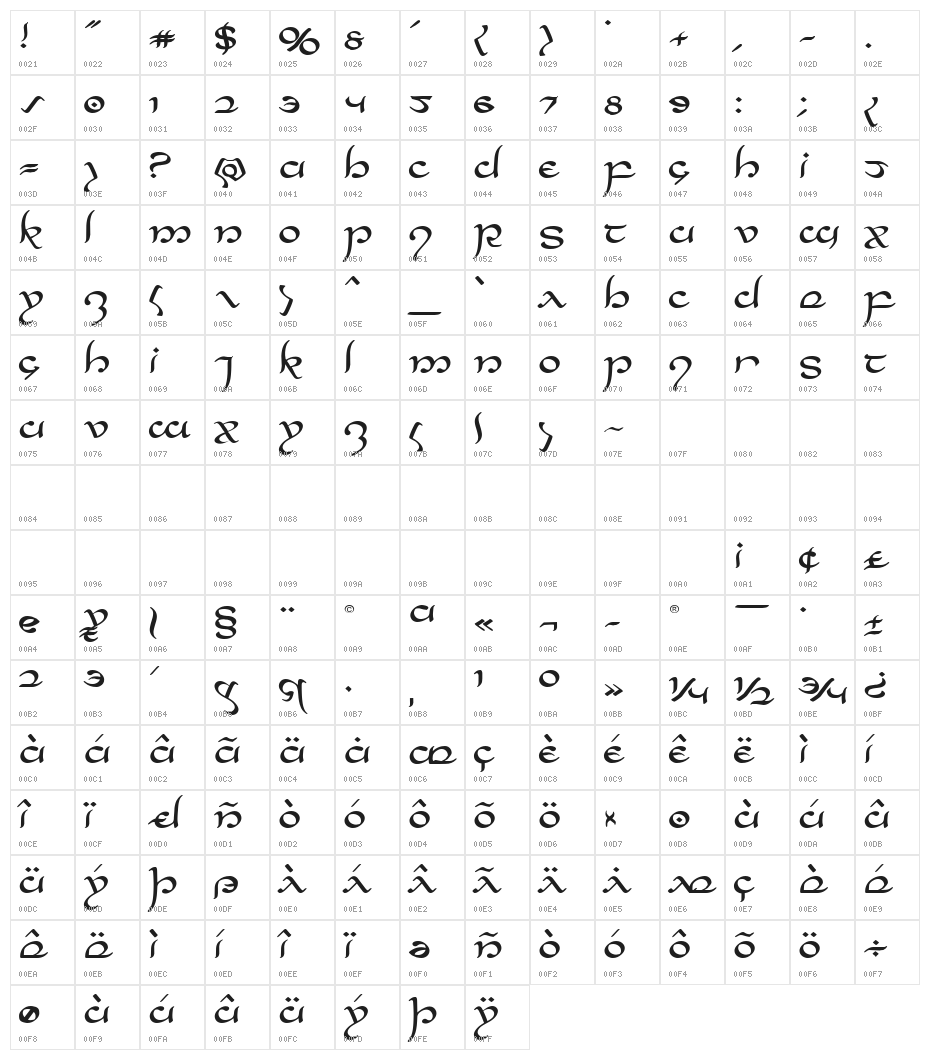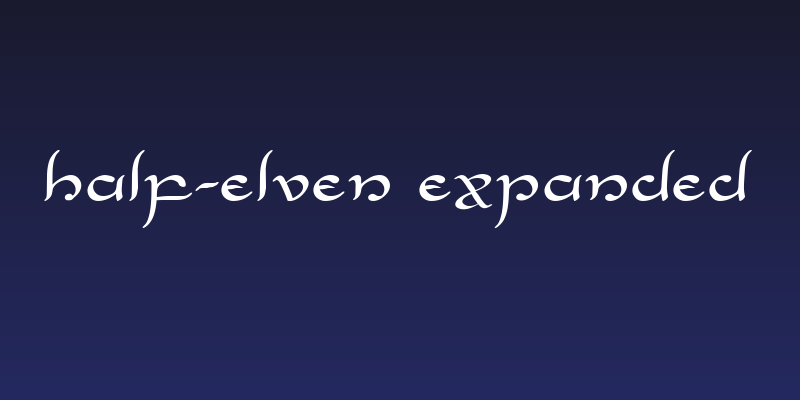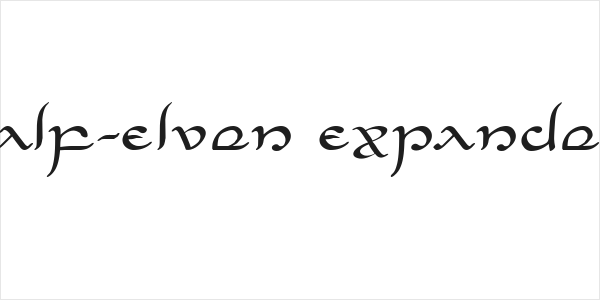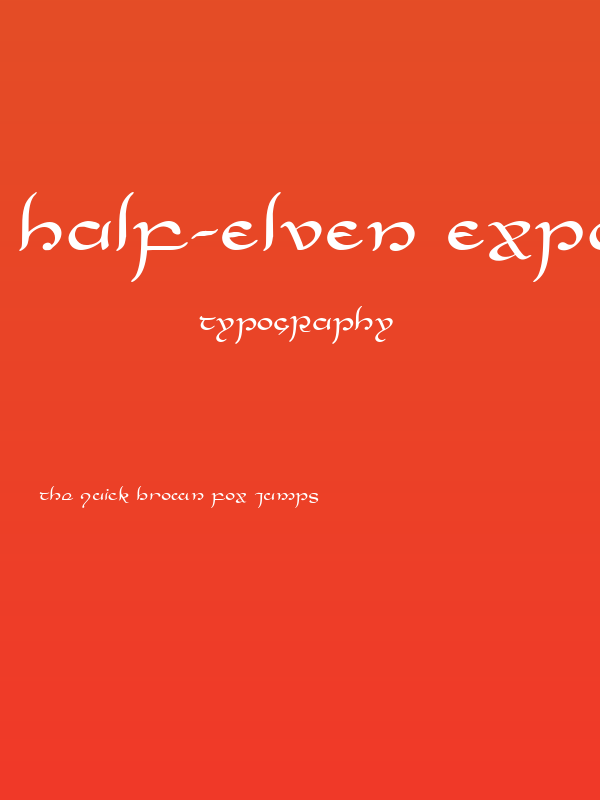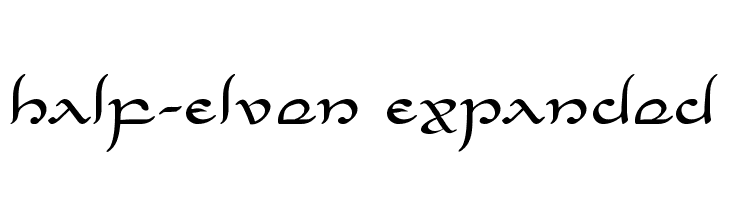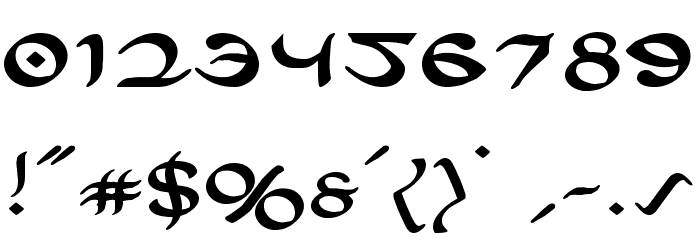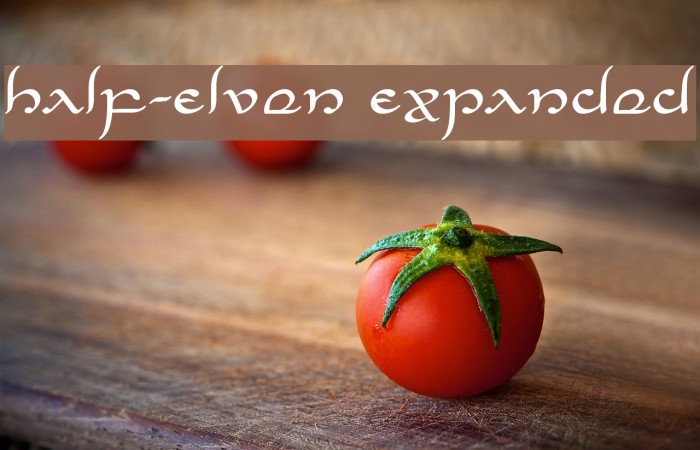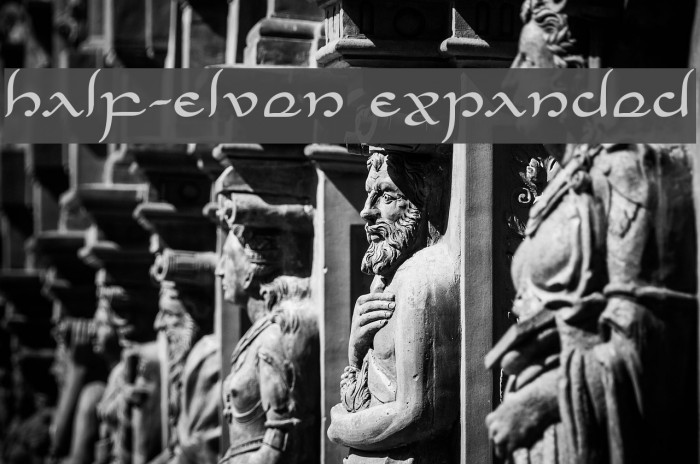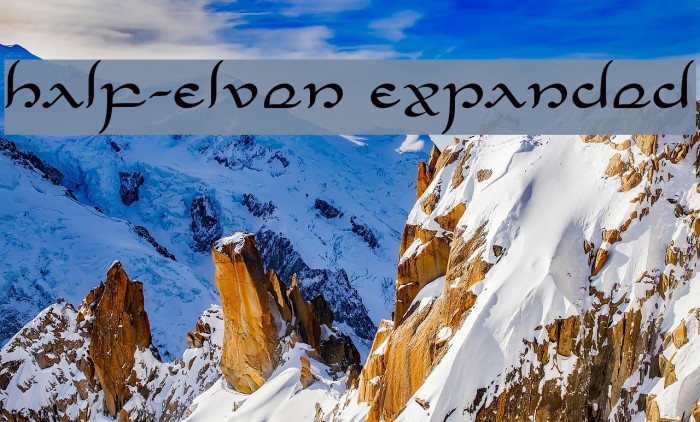
Half-Elven Expanded Font
Half-Elven Expanded Description
This font features an elegant and mystical design, reminiscent of fantasy and elven aesthetics. The characters are adorned with intricate curves and flourishes, giving them a whimsical and enchanting appearance. The strokes are moderately thick, providing a balanced contrast that enhances readability while maintaining an artistic flair. The overall style is both decorative and sophisticated, making it suitable for projects that require a touch of fantasy or magic. The numerals and special characters are designed to complement the letters, ensuring a cohesive look across all text elements.
| Overall Style | Fantasy, Decorative |
| Use Case | Headlines, Logos, Decorative text |
| Proposed Projects | Ideal for fantasy book covers, game titles, themed invitations, and decorative posters. |